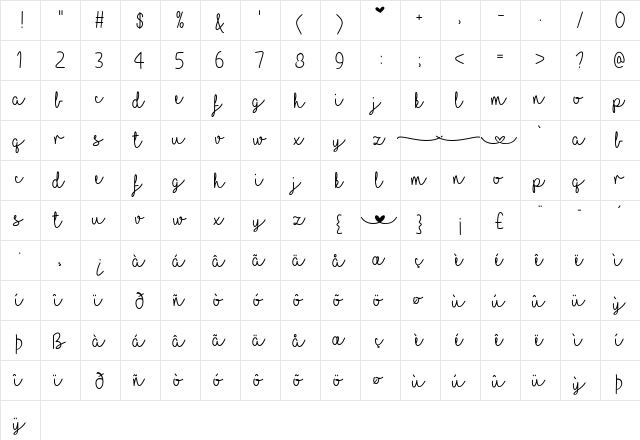
I Love Glitter Regular
| Foundry | Misti's Fonts |
| Designer | Misti's Fonts |
Design Context for I Love Glitter Typeface
I Love Glitter is a composed and adaptable typeface that performs quietly and consistently across a wide range of design contexts.